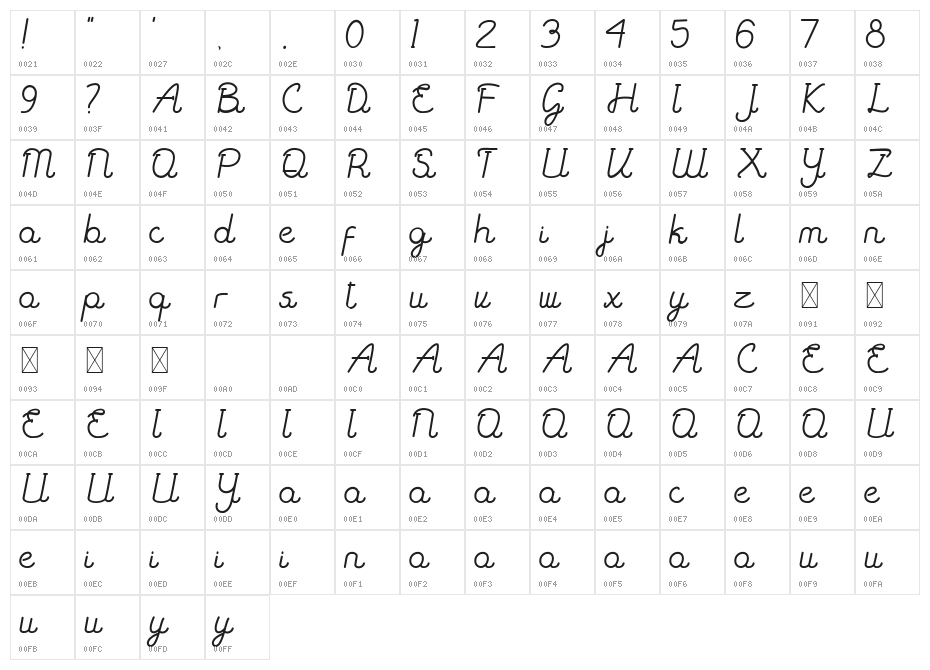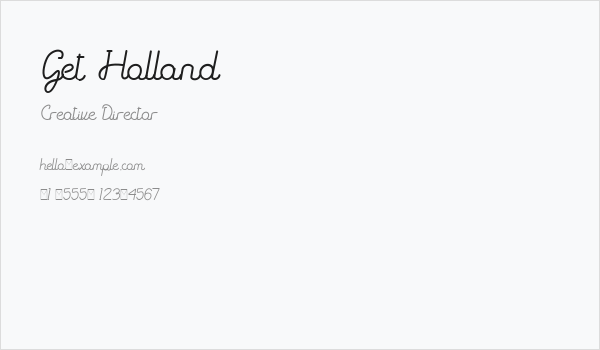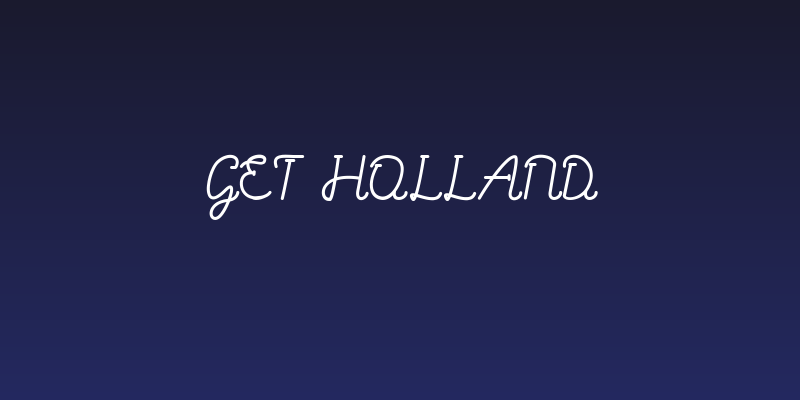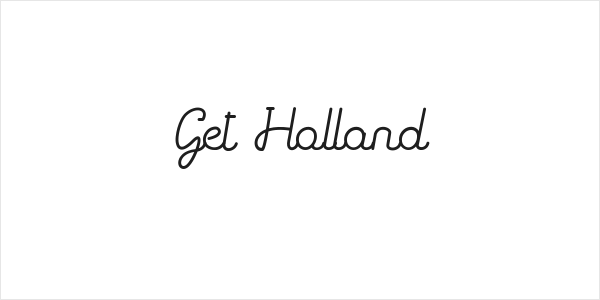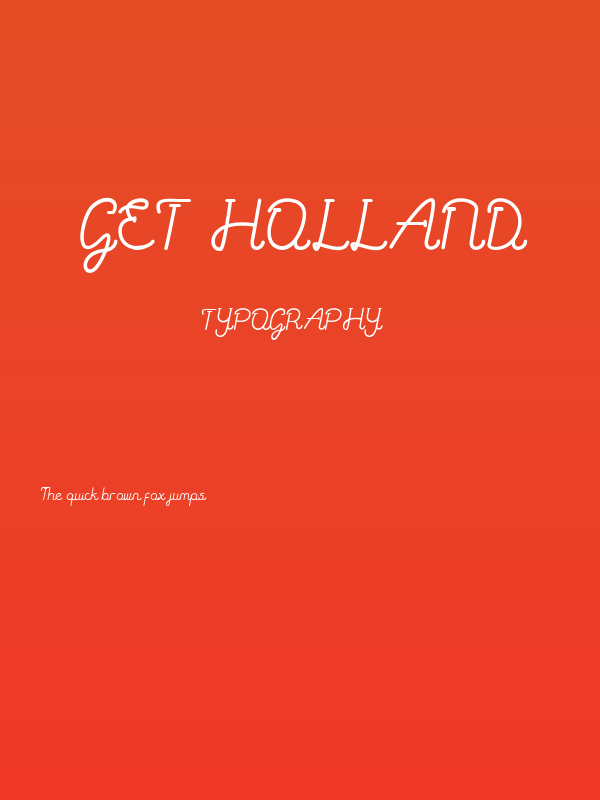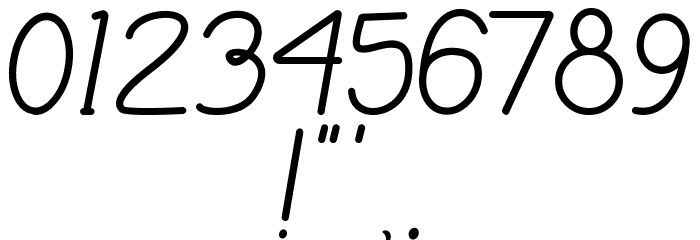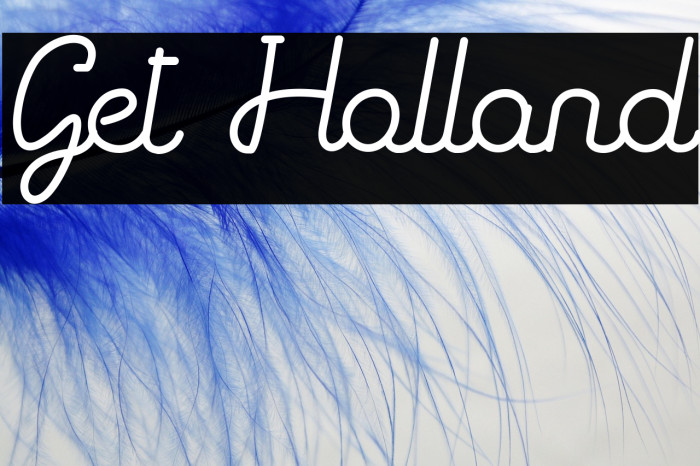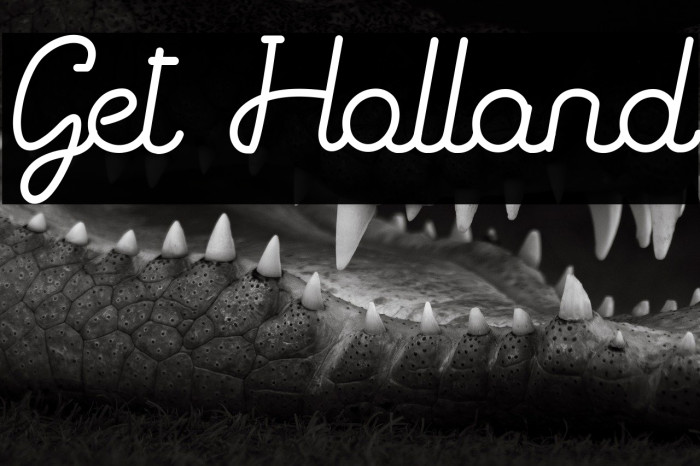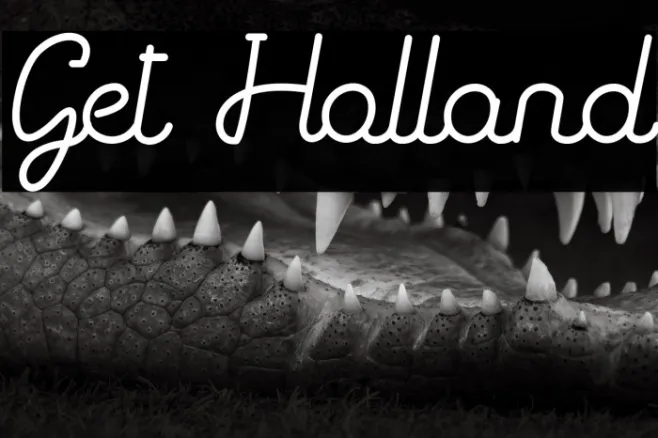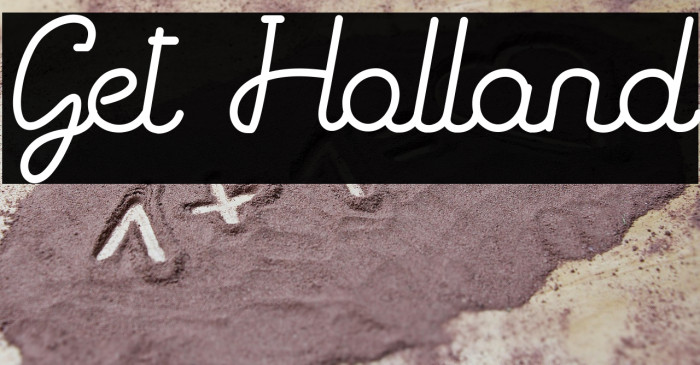
Get Holland Font
Get Holland Description
This font features a smooth, flowing script style that mimics elegant handwriting. The uppercase letters are slightly more structured, while the lowercase letters exhibit a more fluid and connected appearance. The numerals maintain the same cursive style, providing a cohesive look across all characters. The special characters are designed to blend seamlessly with the letters, maintaining the overall aesthetic. The font's design is both sophisticated and approachable, making it suitable for a variety of uses.